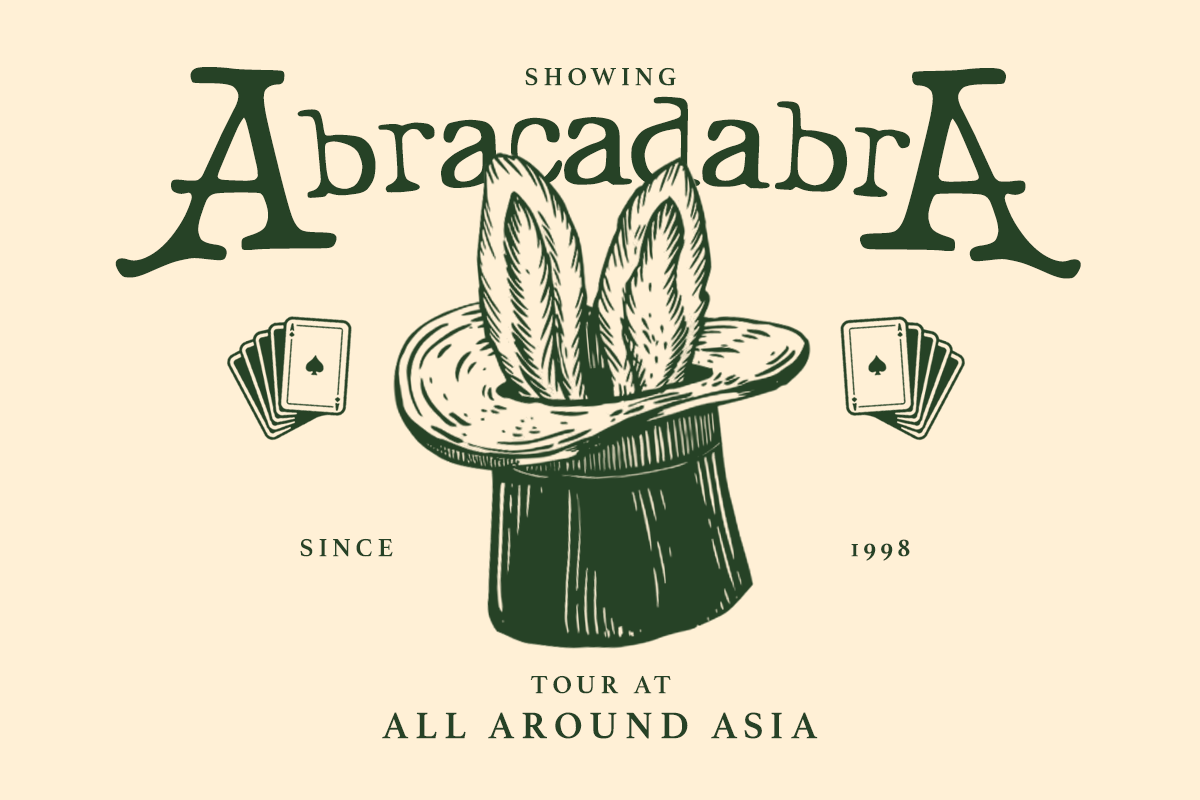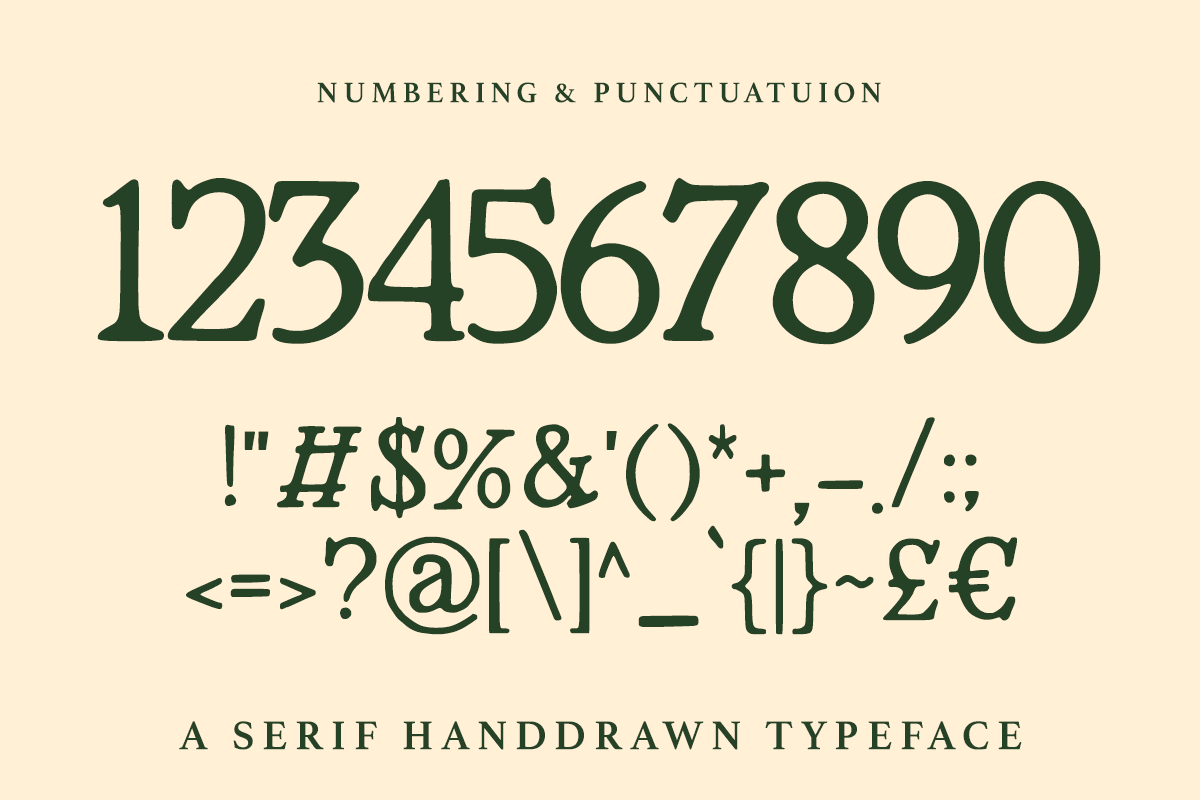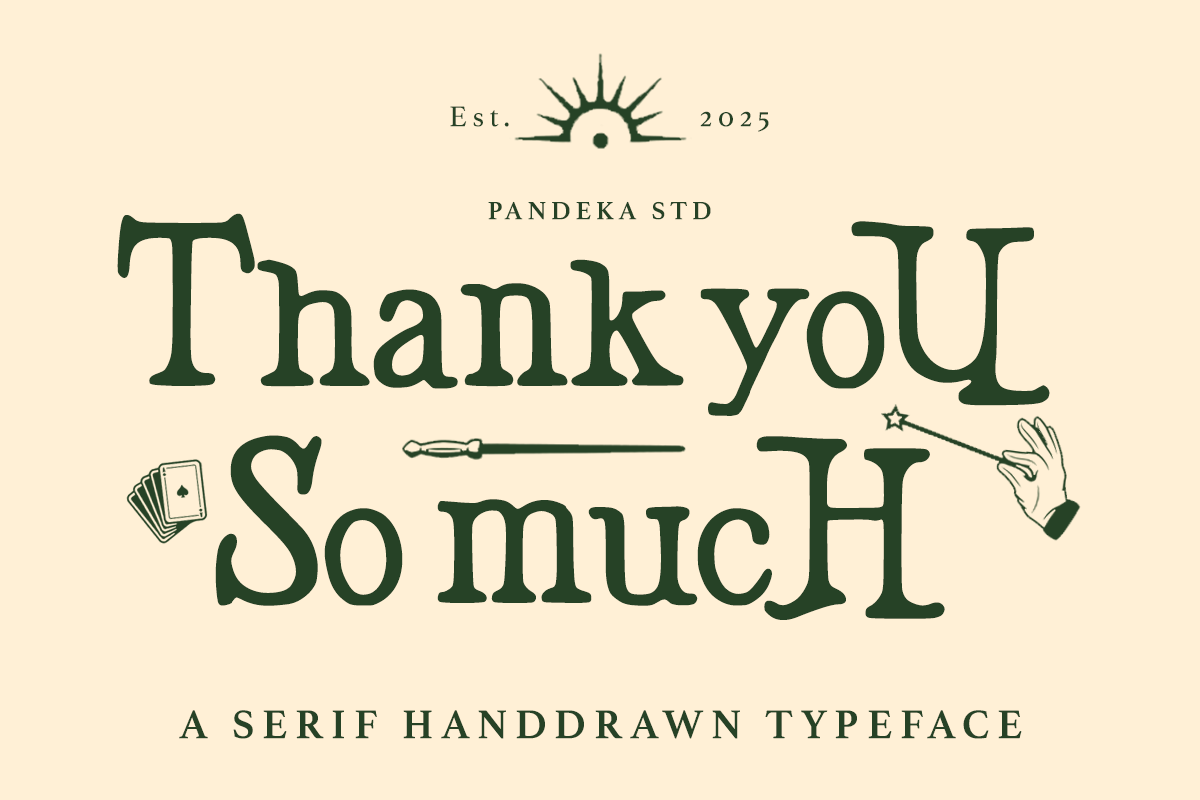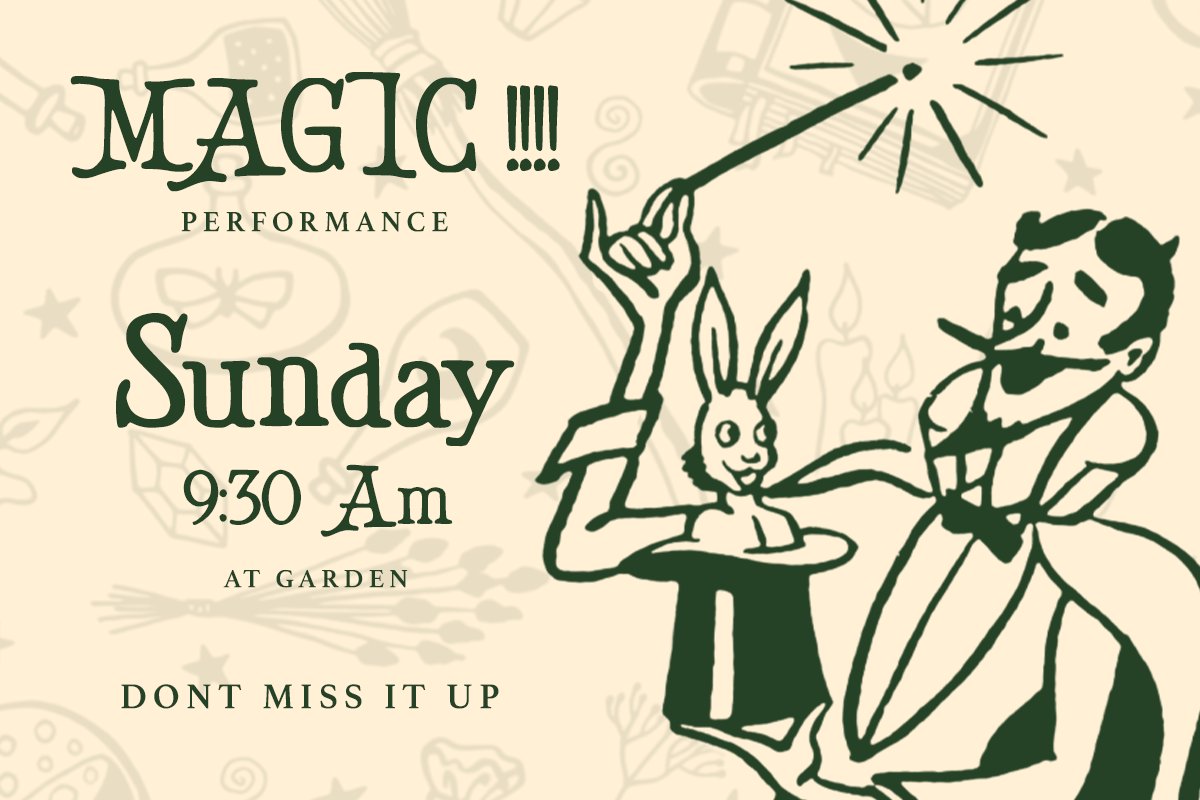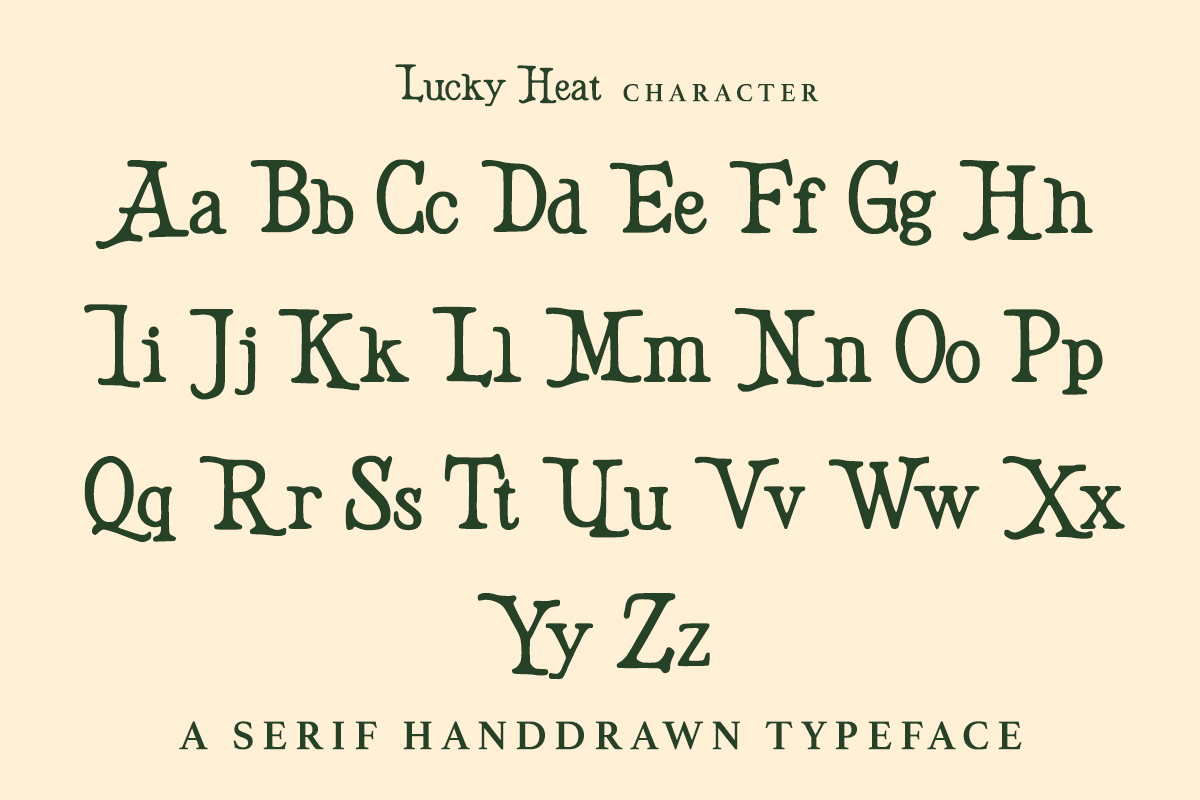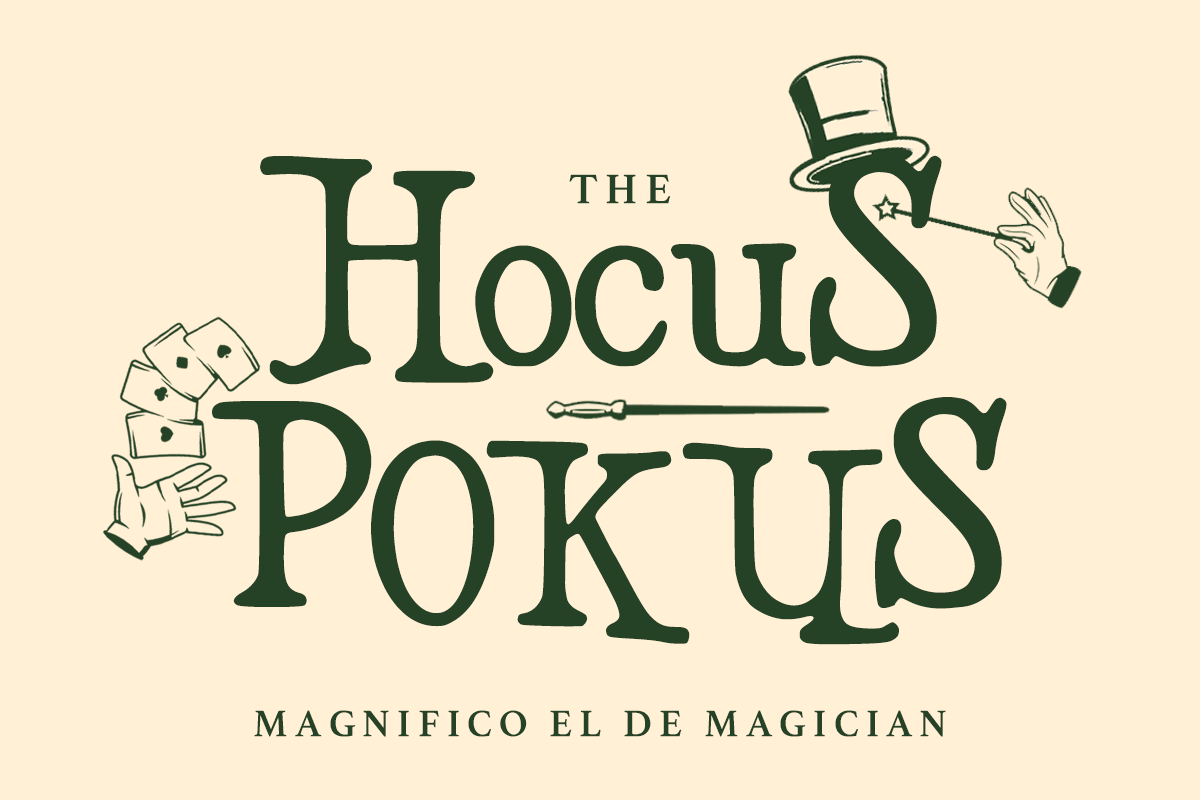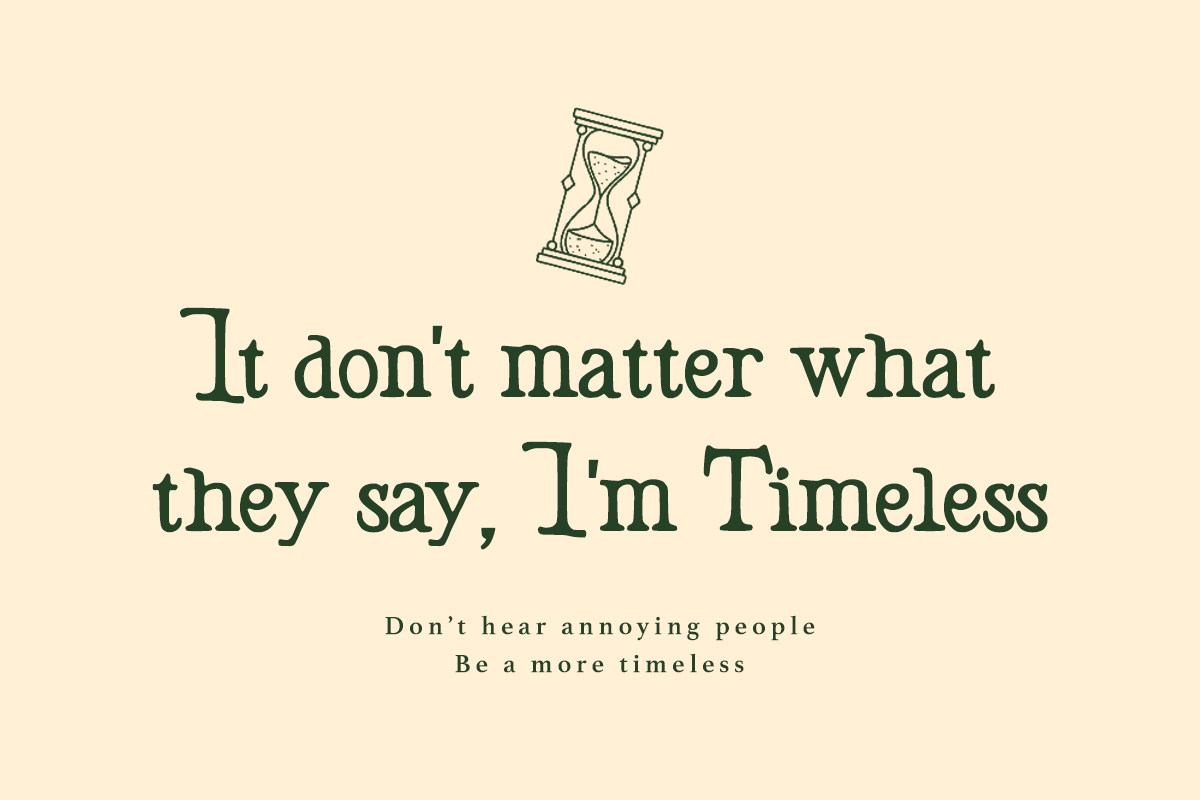
Lucky Heat - Retro Handdrawn Serif
Lucky Heat – Retro Hand-Drawn Western Typeface
Lucky Heat is a bold, hand-drawn serif font that brings vintage Western vibes to life. With a playful yet rugged aesthetic, it's perfect for retro handdrawn serif designs, vintage posters, western-themed branding, bold typography layouts, playful lettering, classic saloon signage, rustic packaging, and artistic display projects.
Its unique style and handcrafted charm make Lucky Heat a standout typeface for adding character and flair to your creative work.